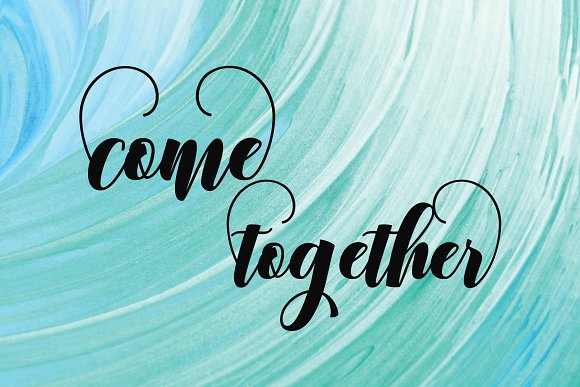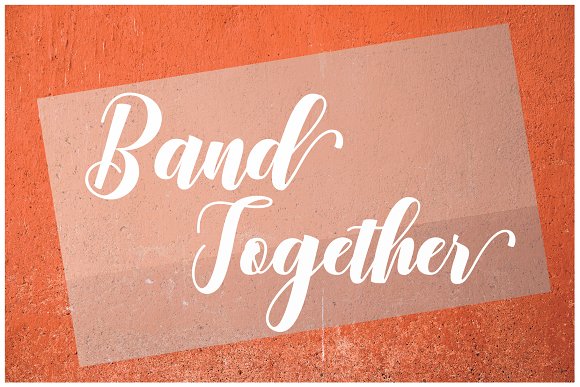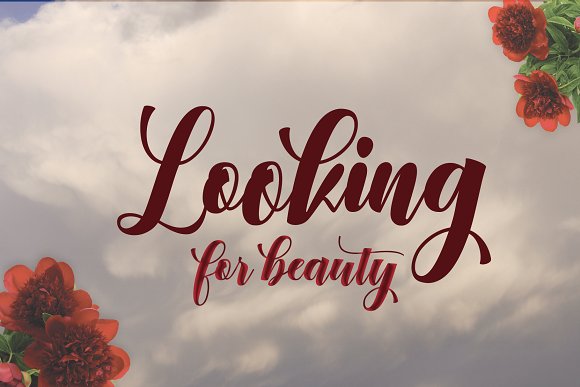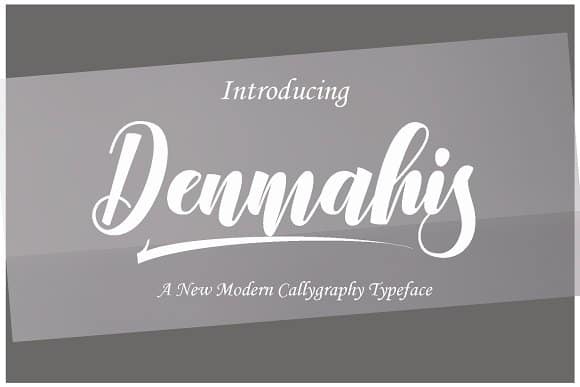
Denmahis Script Font
Hi designer! A new modern callygraphy typeface. Introducing Denmahis Font. It is a product designed and shared by JoeeCreative. Denmahis Font Script Modern Calligraphy. This font was designed by handwriting, and it has a modern and unique forms of calligraphy, the writing style is very natural. Can be used for various purposes. Such as title, signature, logo, wedding invitation, t-shirt, letterhead, nameplate, label, news, poster, badge etc.